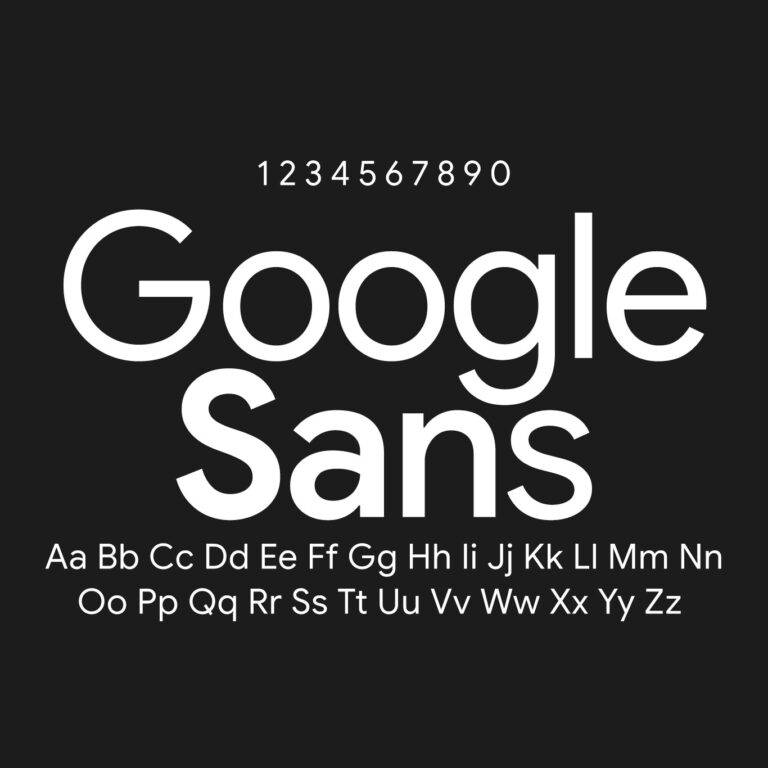
Google Sans is a geometric sans serif typeface developed as part of Google’s visual identity system. Its rounded proportions, open shapes and clean construction create a friendly appearance while keeping the typography clear across interfaces, presentations, websites, branding and large display text.
Font Name: Google Sans
Category: Sans Serif
Style: Geometric
Developer: Google
First Introduced: 2018
Variable Axes: Weight, Grade, Optical Size
Google introduced Google Sans across its products in 2018. The typeface expanded Google’s typography system beyond Roboto and became closely associated with the company’s Material-based interfaces and visual identity. Google later developed additional members of the family, including Google Sans Text, Google Sans Flex and Google Sans Code.
The variable fonts include Weight (wght), Grade (GRAD) and Optical Size (opsz) axes. These controls allow designers to adjust weight and visual density while also optimizing the letterforms for different text sizes.